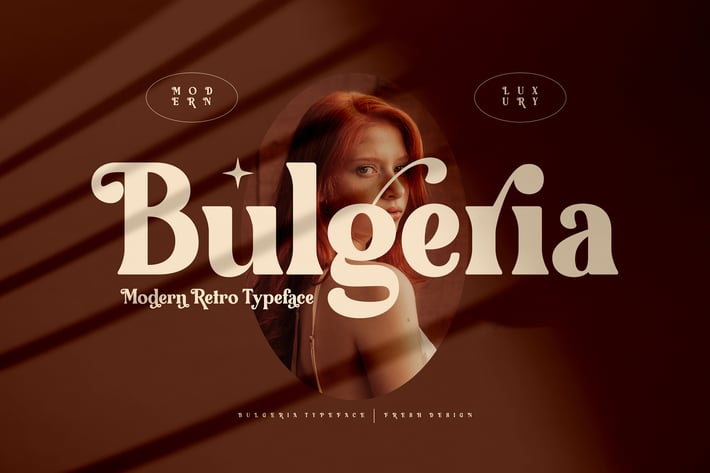
Bulgeria Classy Serif Font
Bulgeria is a modern retro typeface designed to evoke luxury and elegance. Combining timeless serif elements with contemporary styling, it provides a sophisticated look for any creative project. Ideal for high-end branding, magazine layouts, and sophisticated social media content, Bulgeria gives your designs a polished, stylish edge.
Modern retro serif design with luxurious appeal
Clean lines and elegant curves for a refined style
Perfect for both large headings and body text
Multilingual support for global accessibility
Available in Regular and Italic styles
High-quality and versatile for branding, editorial, and more
Branding, luxury, and high-end logos
Editorial design and magazine covers
Stylish invitations, greeting cards, and announcements
Website headers, social media posts, and online content
Print materials like brochures, flyers, and business cards
Fashion, lifestyle, and beauty branding
Sophisticated, luxurious, and versatile — Bulgeria is your go-to font for elegant design.*